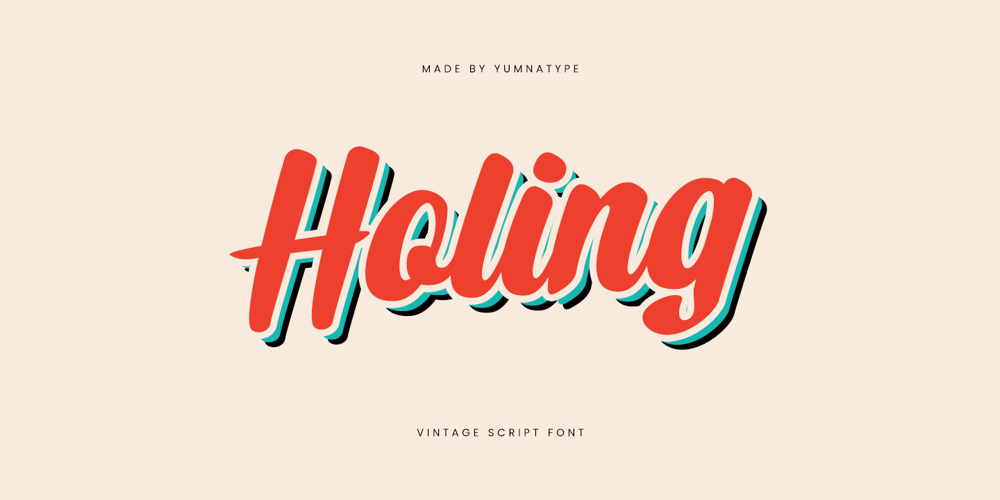
Holing Font Family was designed by Donis Miftahudin and published by Yumna Type. Holing contains 1 styles and family package options. Holing is a charming script font that is beautifully made in vintage appeal. The vintage style of Holing is evident in its graceful and flowing letterforms. Each character is meticulously designed to evoke the elegance and sophistication of classic script fonts. The bold weight ensures that your text stands out, providing a strong visual presence without sacrificing the delicate details that give it a vintage feel.Holing’s rounded shapes contribute to its approachable and friendly appearance. The smooth curves and soft edges of the letters create a harmonious and inviting look. With its low contrast, Holing maintains a consistent and cohesive appearance, ensuring readability while preserving the intricate design elements that define its vintage character. In addition, enjoy the features here.Features: Ligatures Multilingual Supports PUA Encoded Numerals and Punctuations Holing fits in headlines, logos, posters, flyers, branding materials, print media, editorial layouts, and many more designs. Find out more ways to use this font by taking a look at the font preview.Thanks for purchasing our fonts. Hopefully, you have a great time using our font. Feel free to contact us anytime for further information or when you have trouble with the font. Thanks a lot and happy designing.